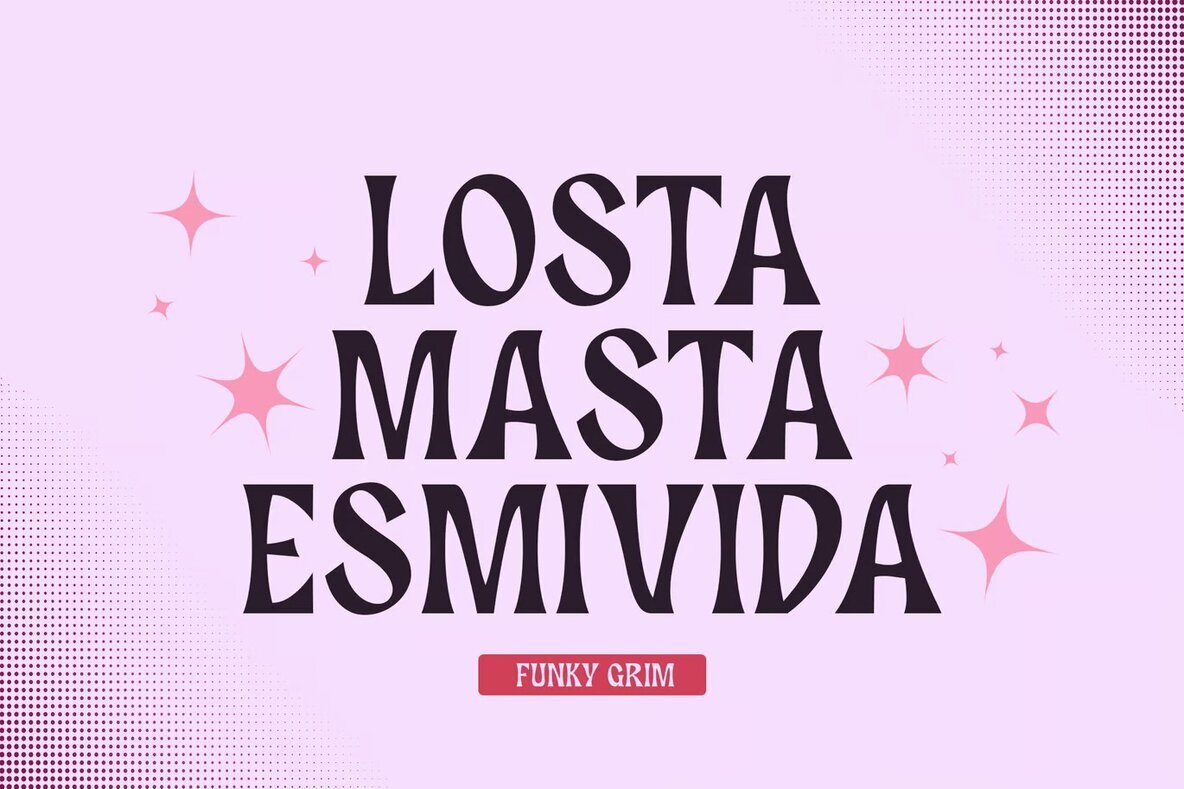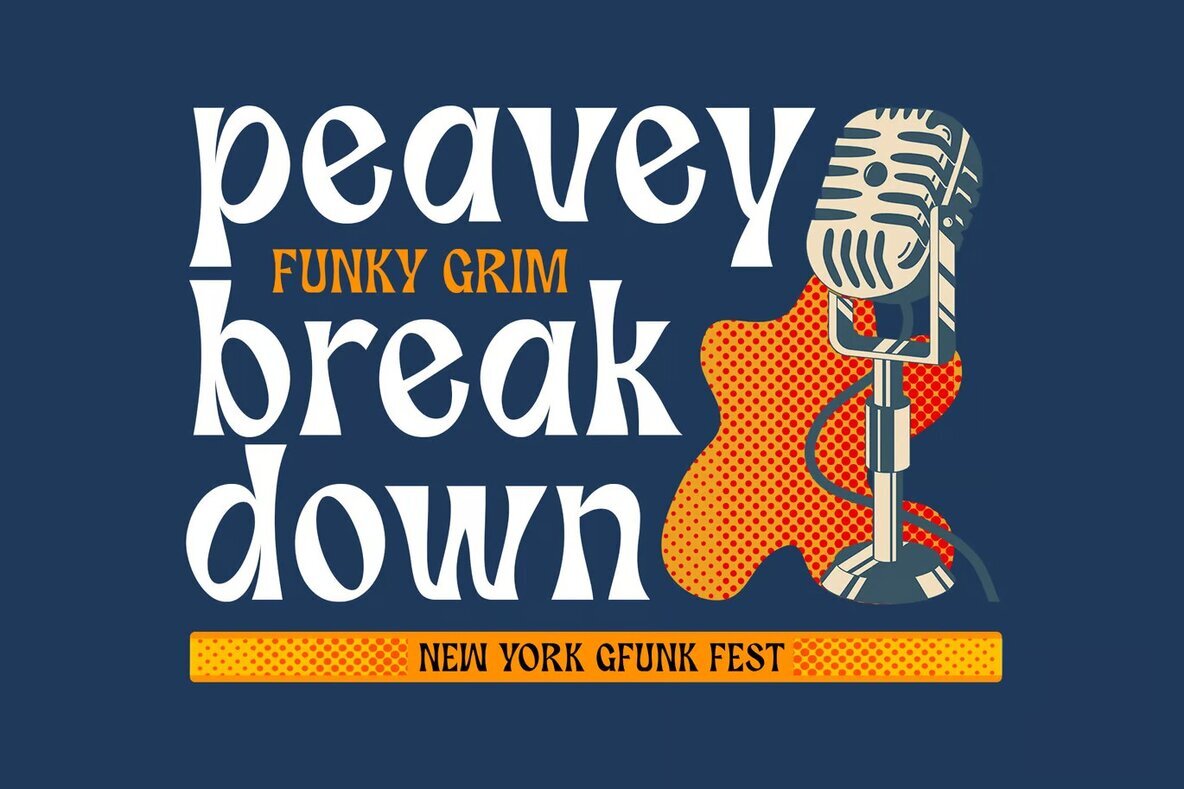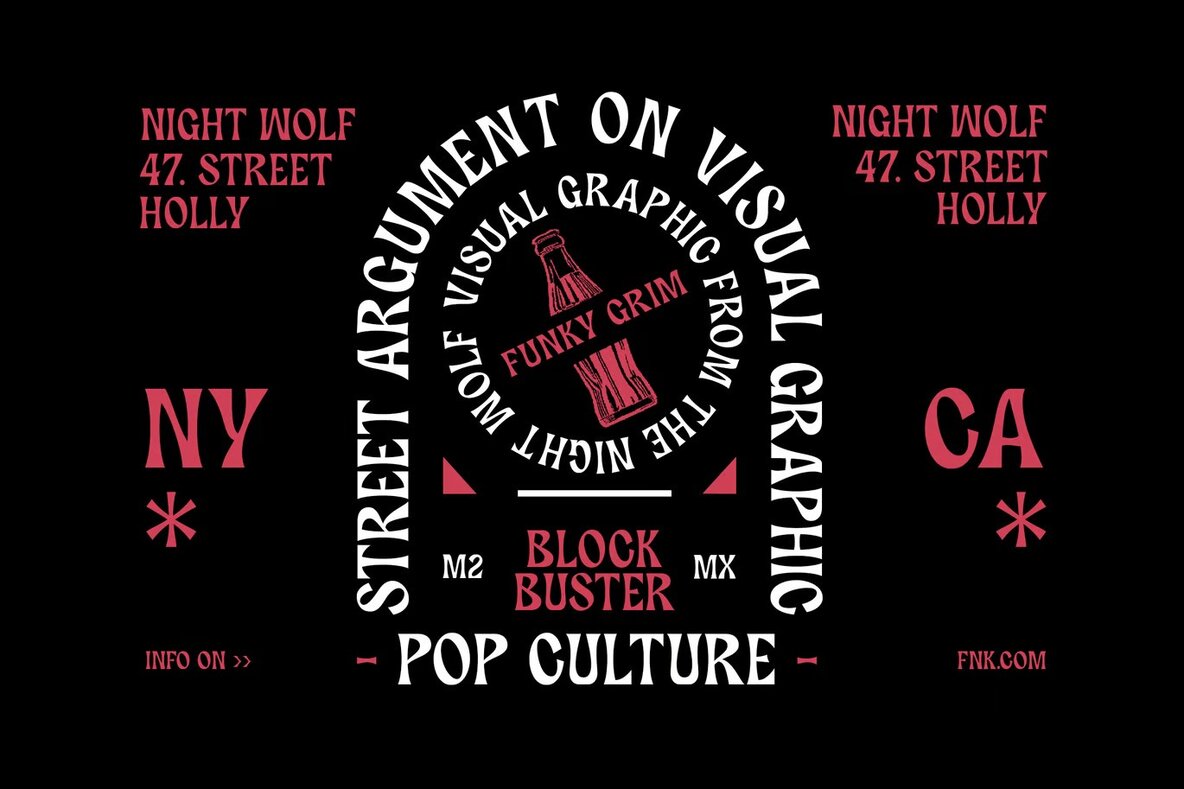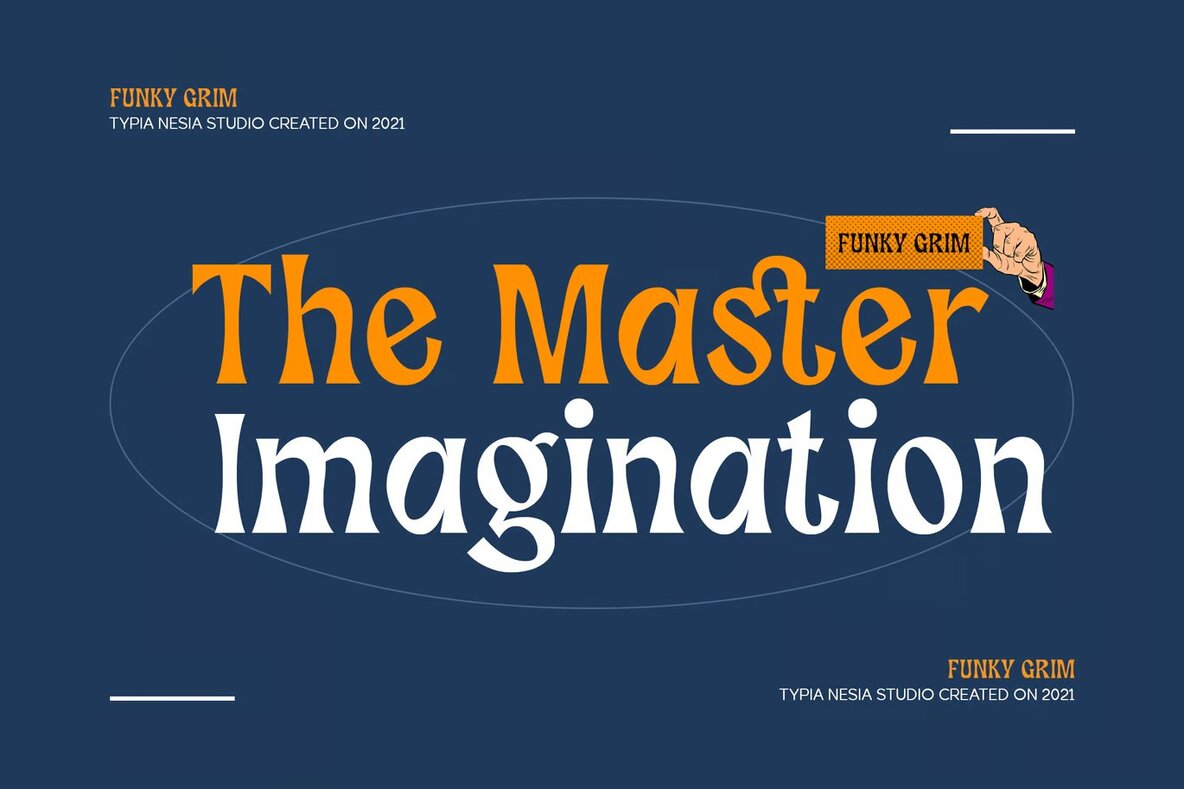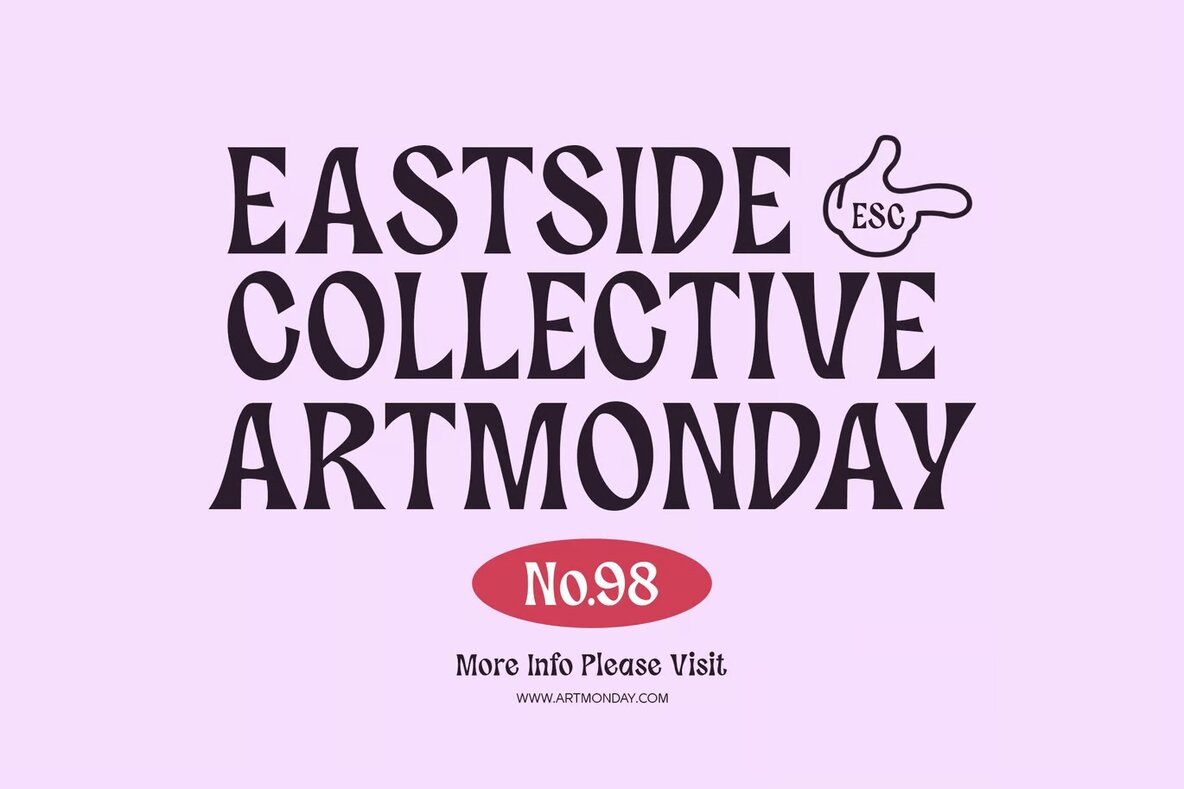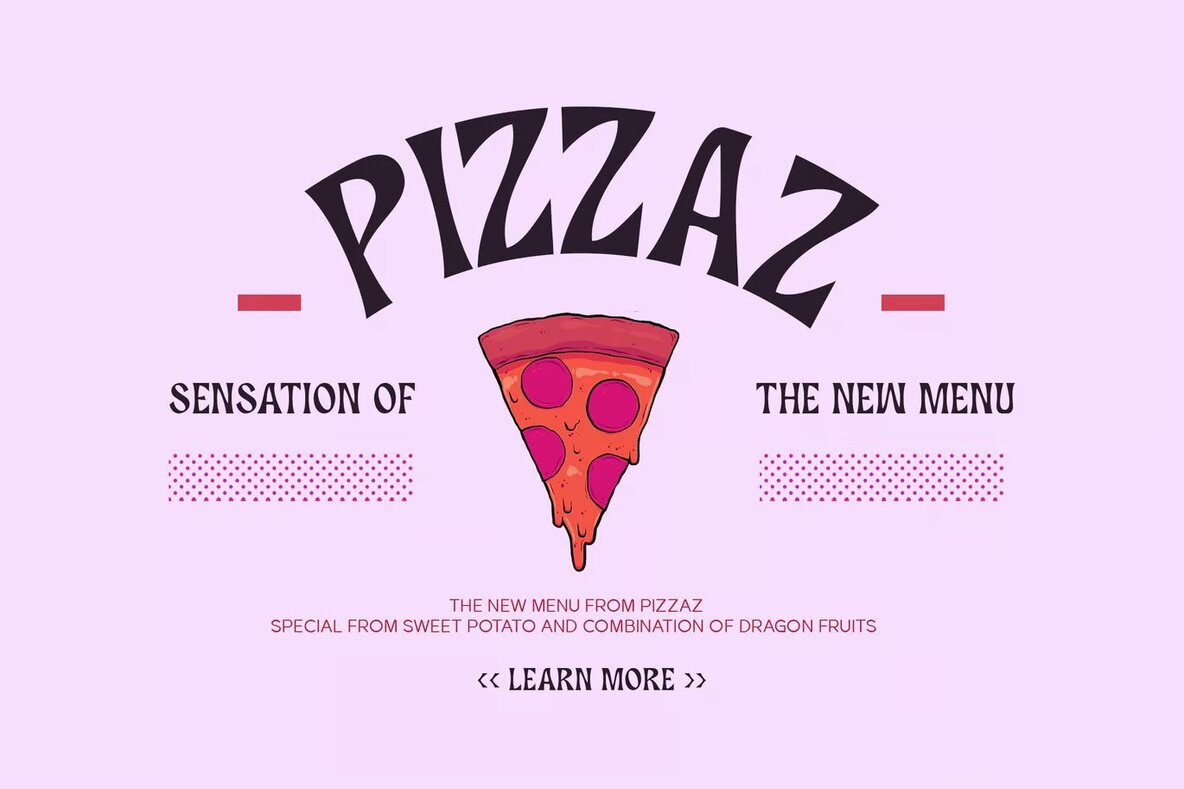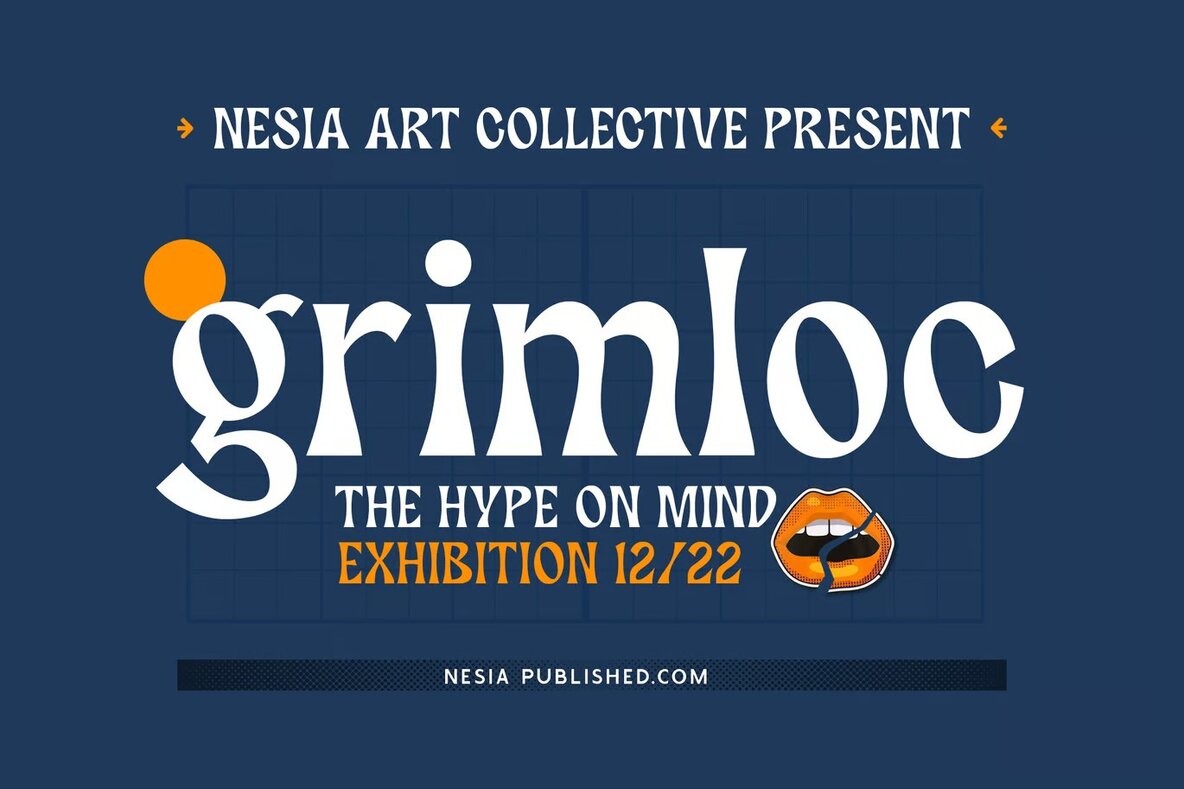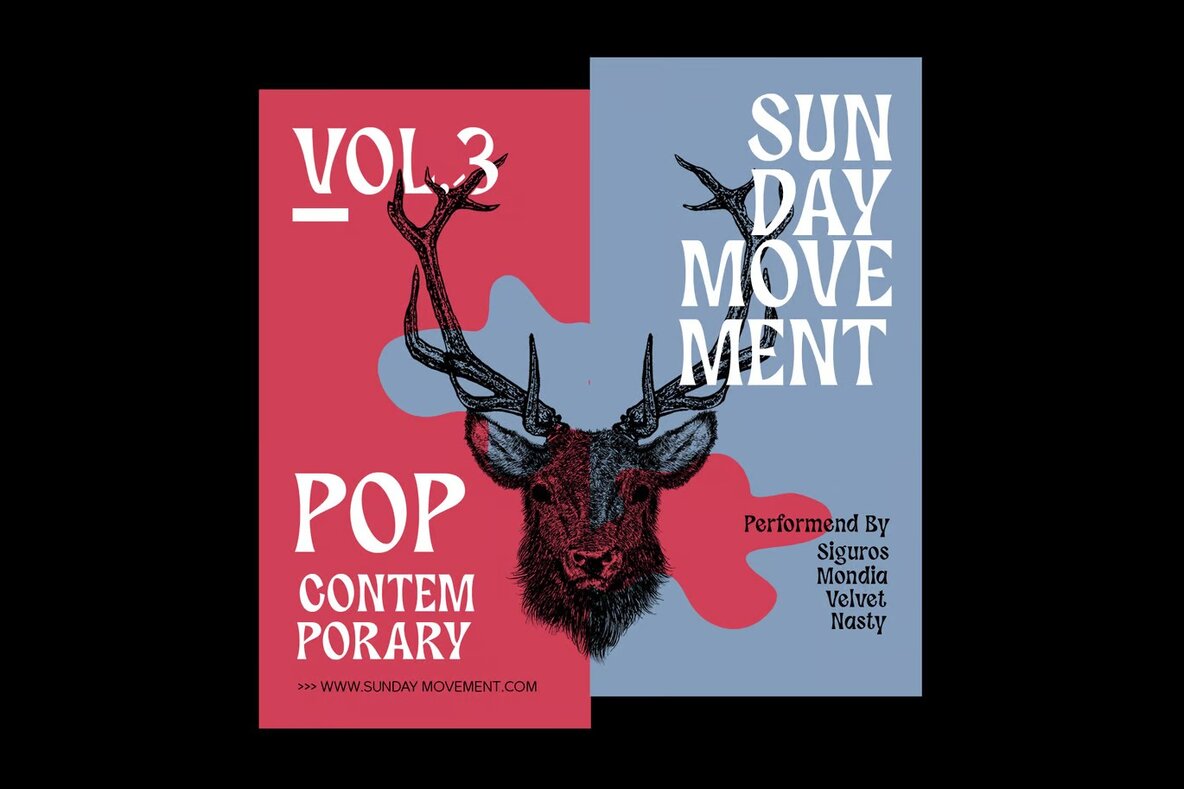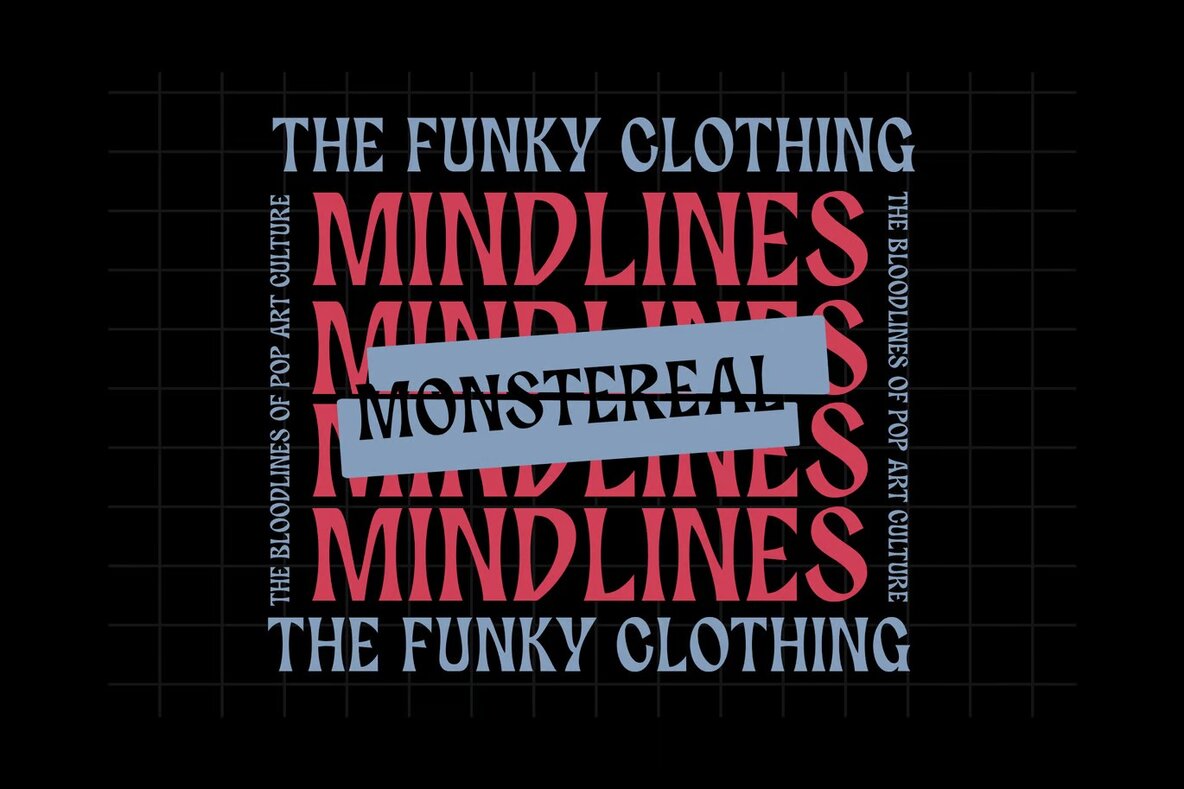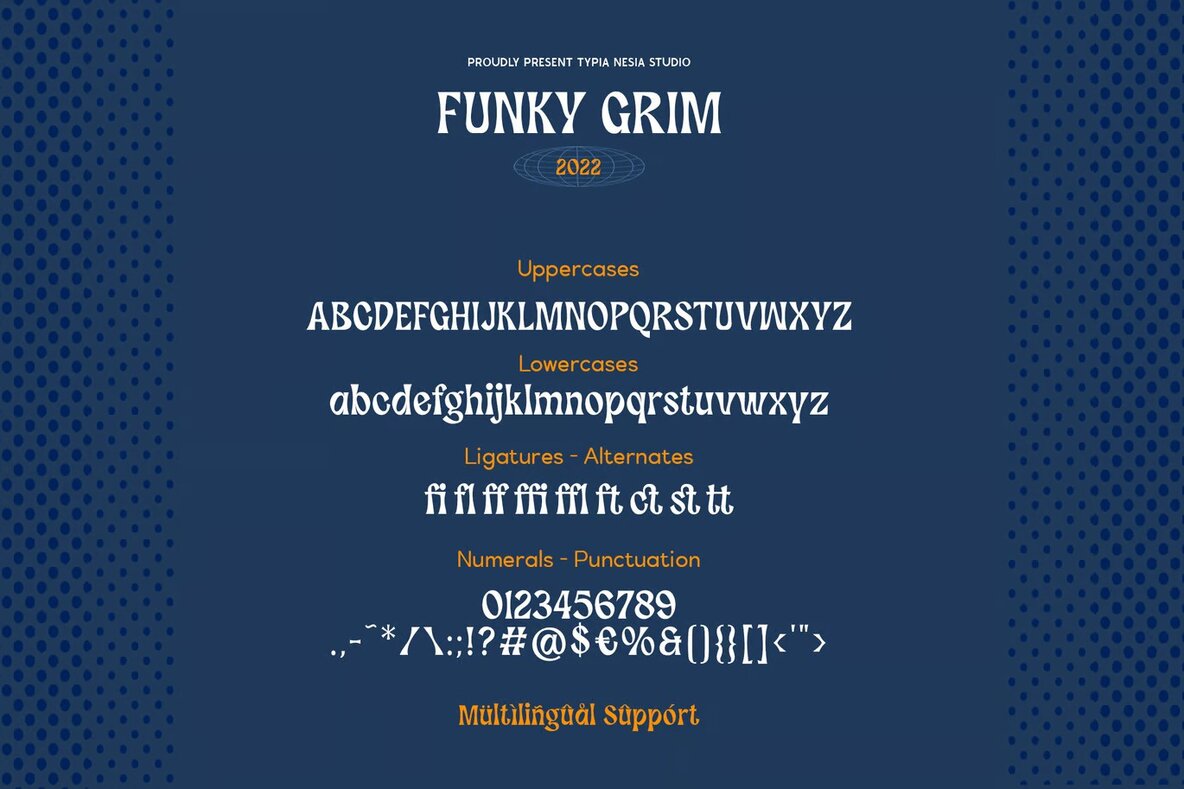
Funky Grim Font
Funky Grim Regular
Funky Grim is a vibrant, playful, and spooky horror display sans serif font perfect for various design needs. Its unique blend of retro pop and spooky elements makes it ideal for logos, branding, advertising, and retro pop art designs. Whether you're creating a striking music poster, an eye-catching movie title, or a playful advertisement, Funky Grim will add a distinctive charm to your project.
This versatile font is also great for kid-friendly designs, such as toy branding, merchandise, comic book covers, and more. Its bold and quirky style ensures it stands out in any setting, from website blogs to greeting cards. Funky Grim is your go-to choice for a fun, retro, and slightly eerie touch in any creative project.